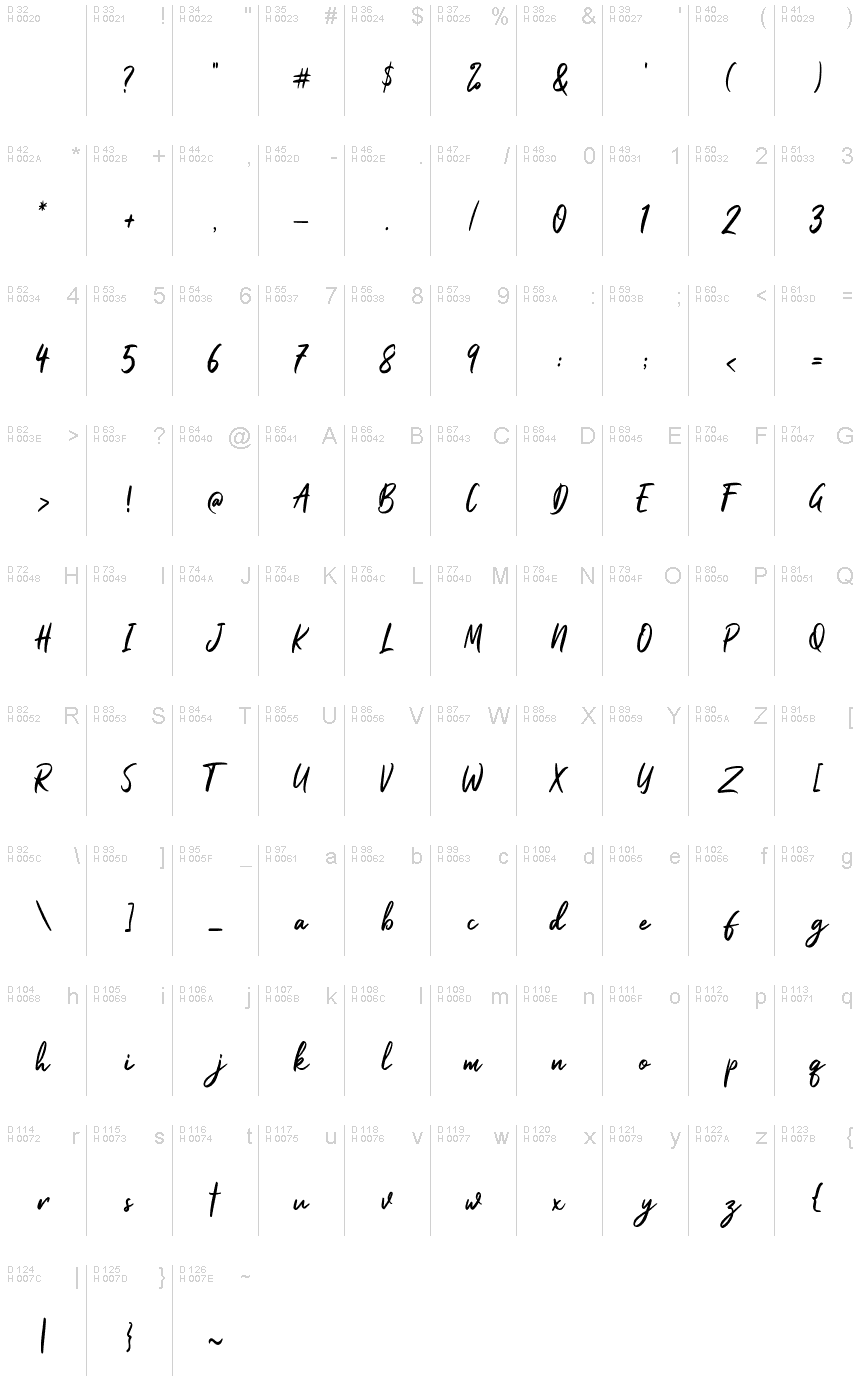
Ballydance
Ballydance, envisioned by the creative Ikrar Bey Khubaib, offers a semi-light, handwritten touch to any project it graces. Its fluidity captures the essence of personal touch, while maintaining an air of professionalism and approachability.
Perfect for invitations, branding, and editorial content, Ballydance is versatile enough to add a subtle elegance or an expressive flair. Its unique characteristics make it an ideal choice for designers seeking to infuse their work with authenticity and personality.